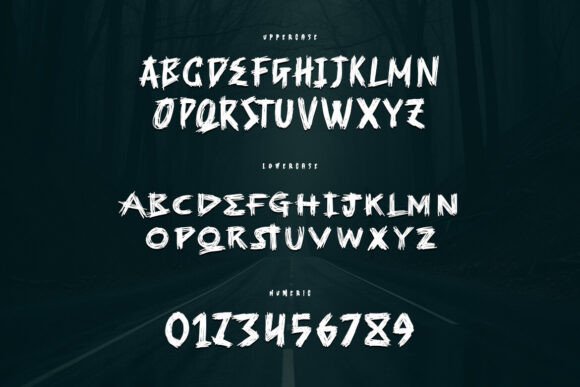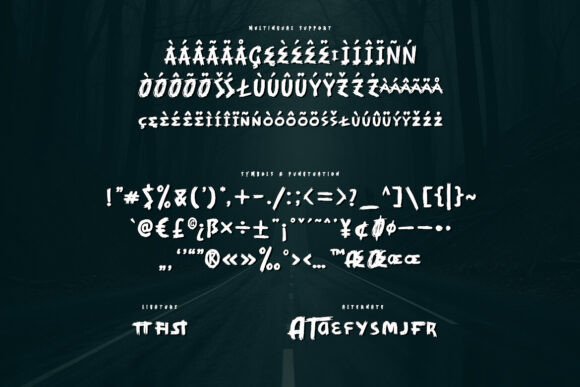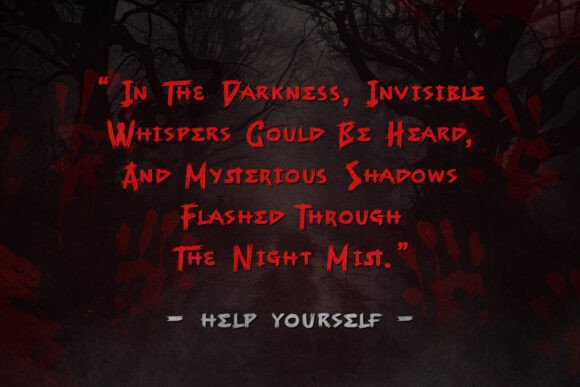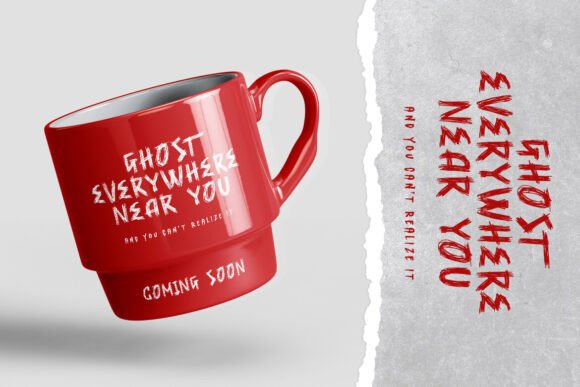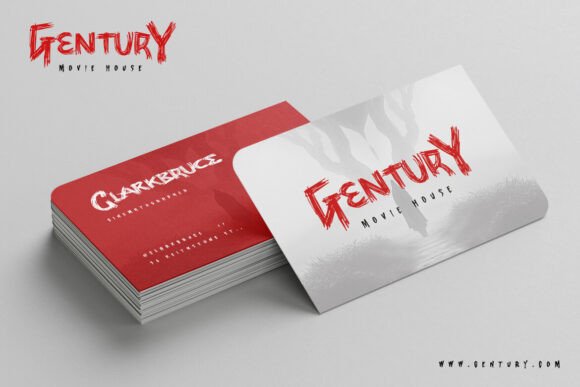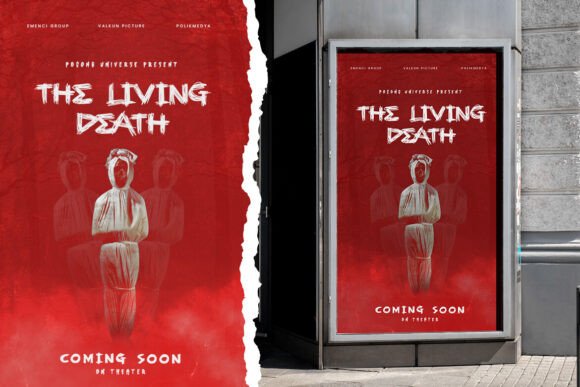
Introducing Ghost Street Font: The Ultimate Horror-Inspired Typeface
Are you a designer or crafty enthusiast looking for a font that can evoke the eerie and supernatural in your work? Look no further than Ghost Street Font, a bone-chilling typeface that is sure to send shivers down the spines of your audience. In this article, we’ll dive into the features and benefits of Ghost Street Font, and explore how it can be used to create unforgettable horror movie posters, haunted house handouts, Halloween invites, and book covers.
The Inspiration Behind Ghost Street Font
Ghost Street Font is a horror-inspired typeface that is designed to capture the essence of the supernatural and the unknown. The font features characteristically rough edges, hair-raising glyphs, and disquieting elements that work together to create a sense of dread and apprehension. Whether you’re creating a horror movie poster or a spooky Halloween invitation, Ghost Street Font is the perfect choice for adding a touch of the macabre to your design.
Key Features of Ghost Street Font
So, what sets Ghost Street Font apart from other typefaces? Here are some of its key features:
- Rough Edges: Ghost Street Font features rough, distressed edges that give it a worn and eerie feel.
- Hair-Raising Glyphs: The font’s glyphs are designed to be hair-raising and unsettling, adding to the overall sense of dread and apprehension.
- Disquieting Elements: Ghost Street Font includes a range of disquieting elements, such as irregular shapes and unusual character designs, that work together to create a sense of unease.
Uses for Ghost Street Font
Ghost Street Font is a versatile typeface that can be used for a wide range of design projects, including:
- Horror Movie Posters: Create eye-catching and terrifying horror movie posters that will leave audiences shivering with fear.
- Haunted House Handouts: Design spooky handouts for haunted houses and other Halloween attractions that will set the tone for a frightening experience.
- Halloween Invitations: Create spell-binding Halloween invitations that will cast a spell on your guests.
- Book Covers: Use Ghost Street Font to create spine-chilling book covers for horror novels and other spooky tales.
Why Choose Ghost Street Font?
So, why should you choose Ghost Street Font for your design projects? Here are just a few reasons:
- Unique Aesthetic: Ghost Street Font offers a unique and unsettling aesthetic that will set your designs apart from the crowd.
- Frosty Aura: The font exudes a frosty aura that leaves an indelible imprint on your audience.
- Memorable: Ghost Street Font is designed to be memorable, making it perfect for creating designs that will linger in the minds of your audience long after they’ve seen them.
Tips for Using Ghost Street Font
Here are a few tips for getting the most out of Ghost Street Font:
- Use it Sparingly: Because Ghost Street Font is so bold and attention-grabbing, it’s best to use it sparingly in your designs.
- Experiment with Colors: Try experimenting with different colors and textures to add depth and interest to your designs.
- Pair it with Other Fonts: Consider pairing Ghost Street Font with other fonts to create a unique and eye-catching design.
In conclusion, Ghost Street Font is a horror-inspired typeface that is perfect for designers and crafty enthusiasts looking to add a touch of the supernatural to their work. With its rough edges, hair-raising glyphs, and disquieting elements, Ghost Street Font is sure to evoke the eerie and unknown in your audience. Whether you’re creating horror movie posters, haunted house handouts, Halloween invitations, or book covers, Ghost Street Font is the ultimate font for achieving an unsettling, spectral, and truly memorable aesthetic.